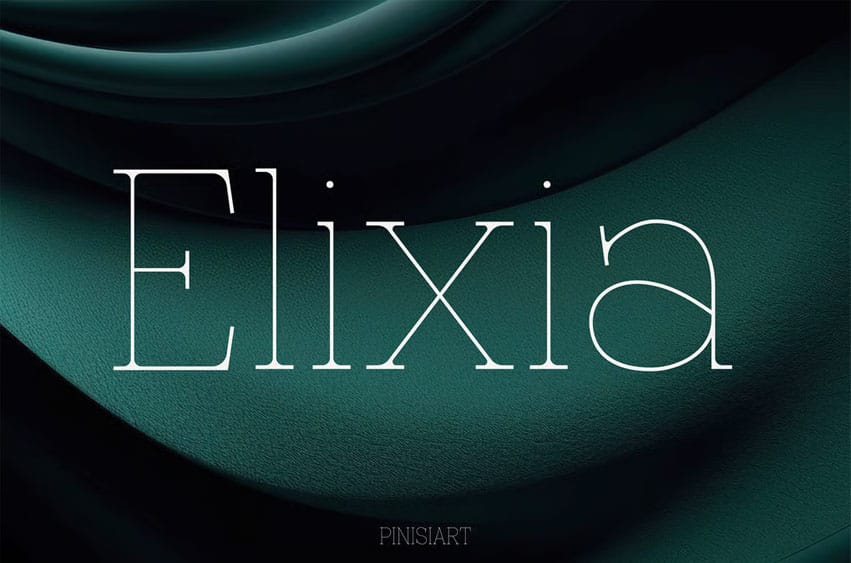
Elixia Font is a refined modern typeface that fuses minimalist structure with luxurious detail. Designed with high contrast, rounded terminals, and subtle geometric rhythm, Elixia delivers the elegance of high fashion with the clarity of clean editorial.
Its graceful balance between classic sophistication and modern restraint makes it ideal for wedding invitations, upscale branding, portfolios, and magazine layouts. Every character feels sculpted with intention—lightweight yet impactful, spacious yet tight-knit.
With Elixia, beauty lives in the whitespace, and messaging feels as tailored as the visuals themselves.
Whether you’re designing for a bridal brand, a fashion-forward magazine spread, or a lifestyle label rooted in luxury, Elixia captures an aura of intentionality. It’s perfect for headlines that whisper class, logos that carry legacy, and identities that crave a modern serif with timeless grace.
- Modern Elegance – Light contrast, soft terminals, and geometric clarity for contemporary visual presence.
- Built for Upscale Design – Perfect for wedding stationery, branding suites, fashion lookbooks, and editorial content.
- Versatile Tone – Works across both digital and print, from refined social media posts to high-end magazine spreads.
- Timeless Character – Combines the readability of modern serif styles with the poise of traditional elegance.